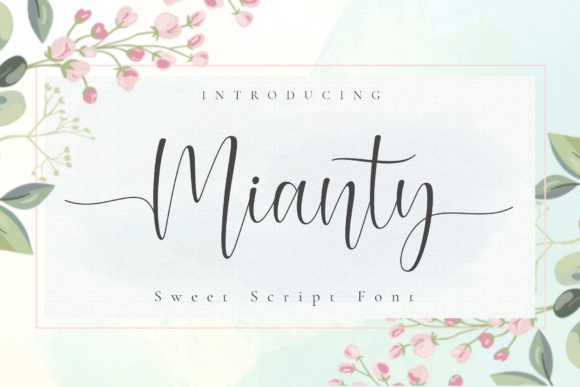
**Introducing Mianty: The Enchanting Script for an Unforgettable Christmas**
Step into a world of captivating calligraphy with Mianty, the exquisite script font that will transform your Christmas creations into a breathtaking spectacle.
With its graceful strokes and enchanting flow, Mianty effortlessly captures the spirit of the season. Its varying baseline, smooth lines, and stunning alternates dance across the page, creating a mesmerizing symphony of elegance and charm.
Picture your Christmas posters adorned with Mianty's whimsical characters, each letter flowing seamlessly into the next like a delicate snowflake. Its gorgeous glyphs and swashes add a touch of magic, inviting your audience into a winter wonderland filled with cheer and warmth.
Experience the joy of crafting Christmas cards that evoke the true meaning of the season. Mianty's enchanting curves will wrap your words in a warm embrace, making each message a heartfelt expression of love and gratitude.
Prepare to be captivated by Mianty's timeless beauty and modern flair. It's the perfect choice for creating Christmas designs that will leave an everlasting impression. Fall head over heels in love with this enchanting script and elevate your projects to unprecedented heights.